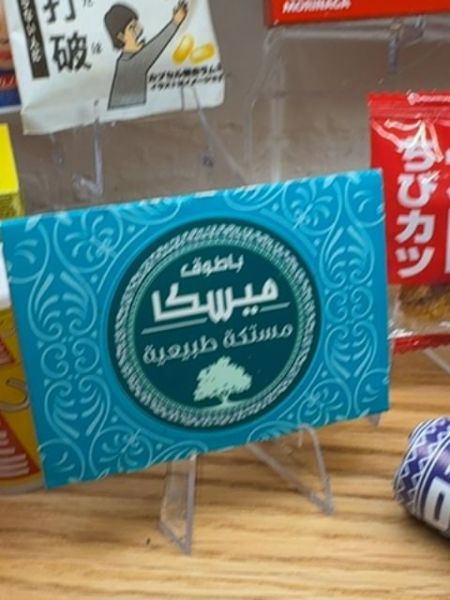
ميسكا
This is a type of chewing gum.
The typography uses a traditional Arabic script, which is both elegant and bold, adding a touch of cultural authenticity. The font style is geometric and flowing, allowing for easy readability while maintaining a refined aesthetic.
The packaging features a vibrant turquoise background with intricate white ornamental patterns, surrounding a central circular emblem. The emblem itself contrasts with a darker shade, highlighting the product name and additional text.